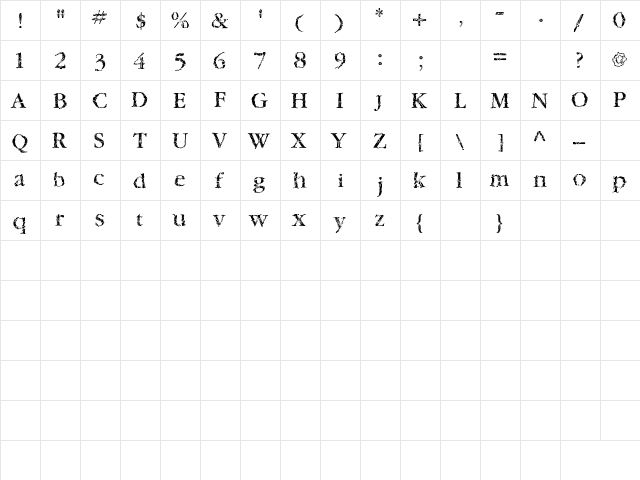
Disney Twilite Zone Tower of Terror Book
Design Context for Disney Twilite Zone Tower of Terror Typeface
Disney Twilite Zone Tower of Terror is a composed and adaptable typeface that performs quietly and consistently across a wide range of design contexts.